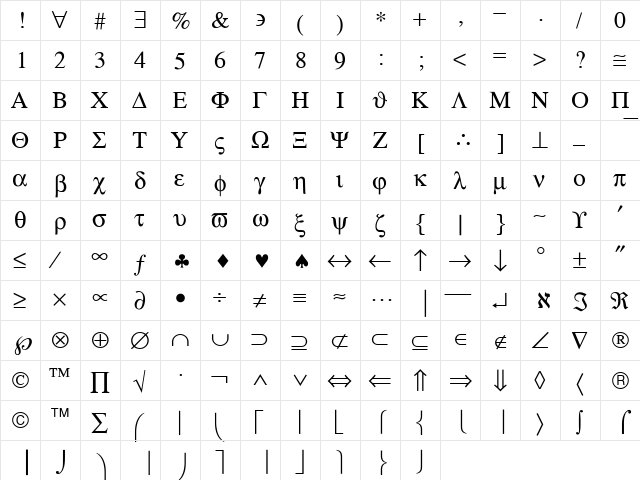
Symbol Medium
Design Context for Symbol Typeface
Symbol is a composed and adaptable typeface that performs quietly and consistently across a wide range of design contexts.
Pro Tip: Use Symbol in both headline and body roles to test its range before committing to a single application.